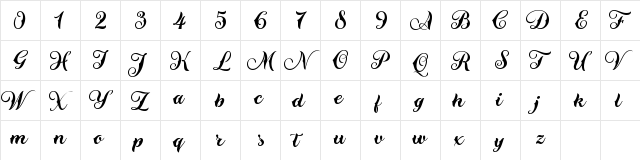
Alone Together Script Demo Regular
Design Context for Alone Together Script Demo Typeface
Alone Together Script Demo brings a calligraphic fluidity to the page — its connecting strokes and expressive curves give it an unmistakably human quality.
Font Pairing: Combine Alone Together Script Demo with a simple geometric sans for maximum contrast — the tension between flowing curves and clean structure is a classic typographic pairing.
Pro Tip: Use Alone Together Script Demo for short runs of text — names, titles, or taglines. Extended body copy in script faces tires the eye quickly.